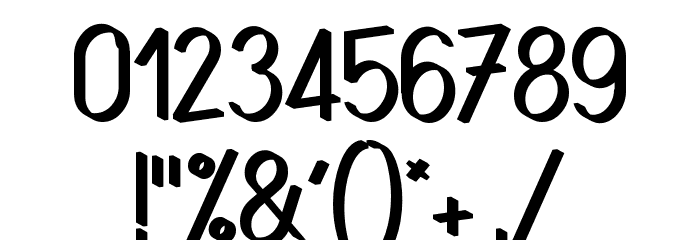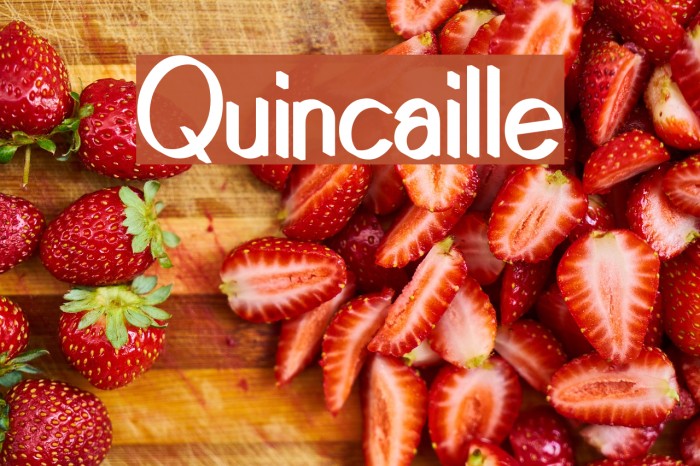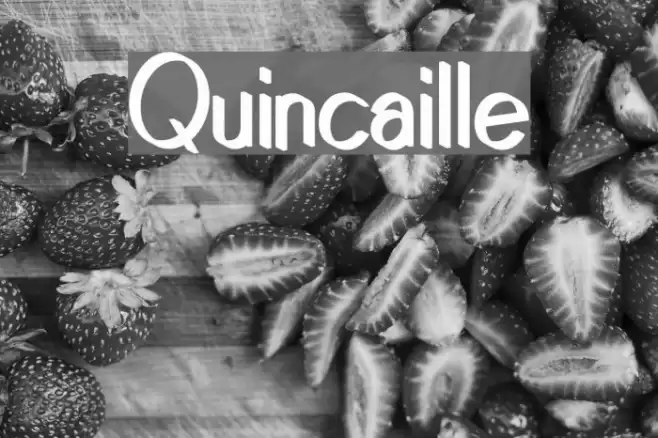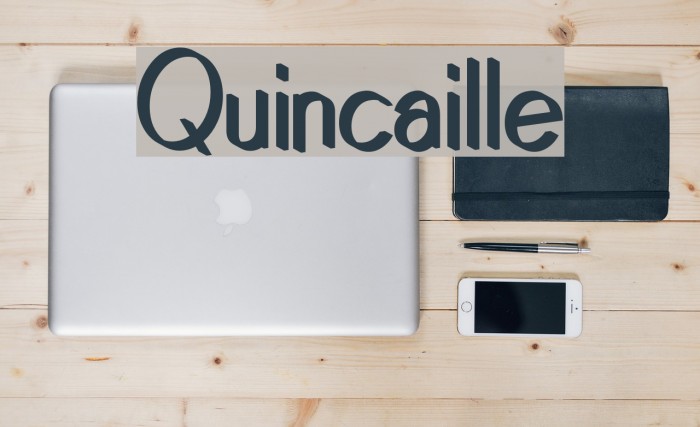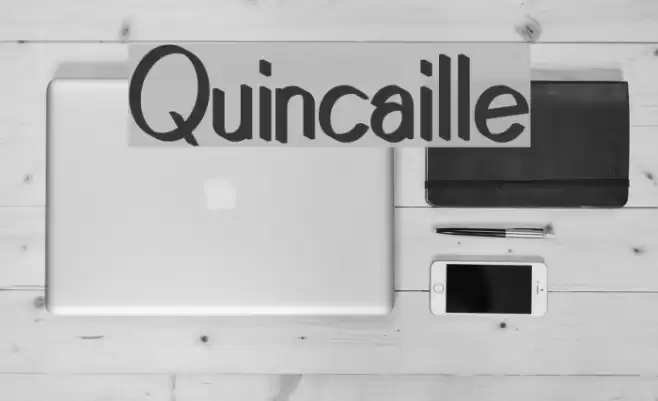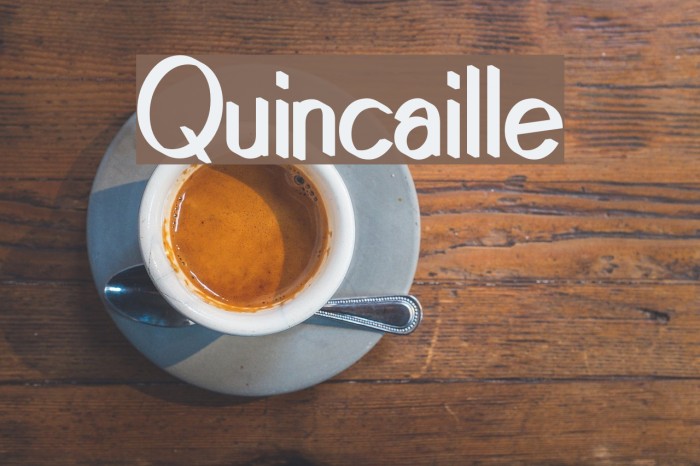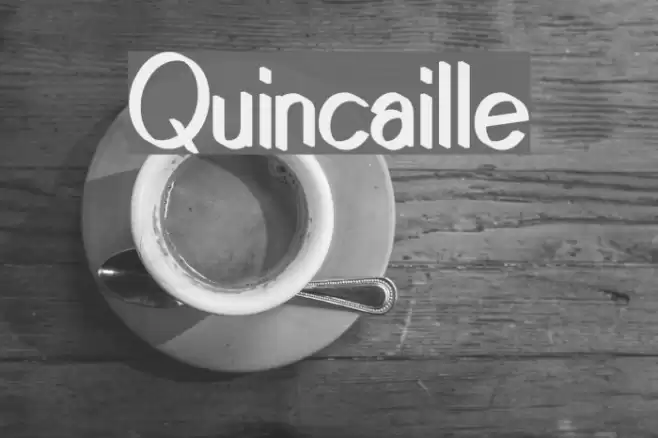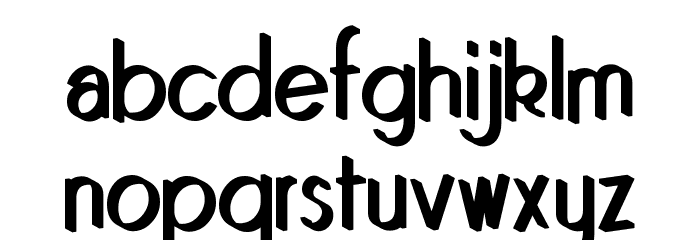
Quincaille Font
Quincaille Description
This font features a playful and dynamic style with a hand-drawn appearance. The characters are slightly irregular, giving it a whimsical and informal feel. The uppercase letters are bold and prominent, while the lowercase letters maintain a consistent flow with rounded edges. Numbers and special characters follow the same lively design, making the font versatile for creative projects. The overall look is both approachable and energetic, suitable for a variety of uses where a casual yet impactful impression is desired.
| Proposed Projects | Ideal for children's books, greeting cards, playful branding, and creative posters. |